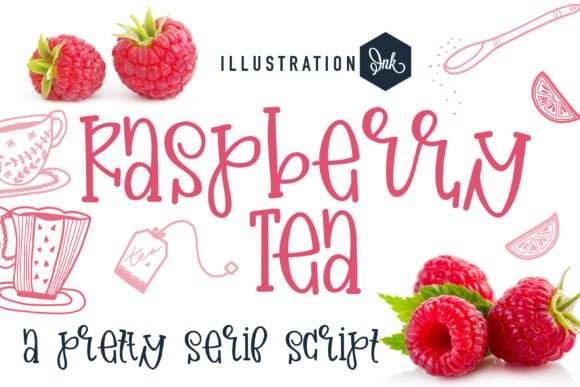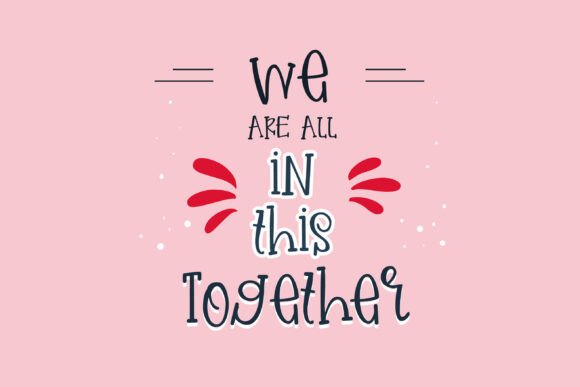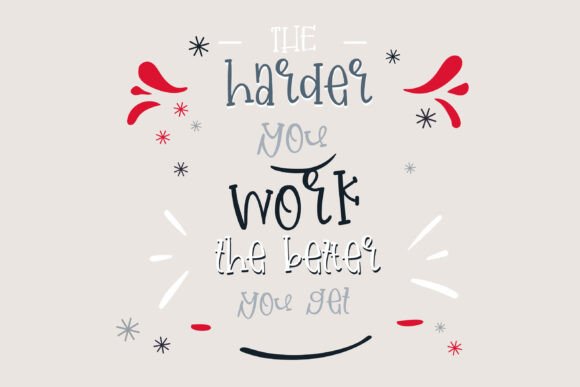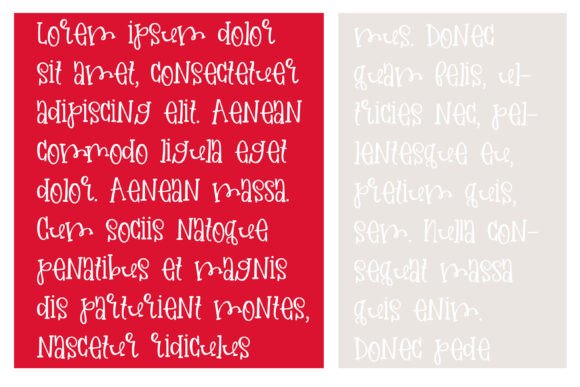
Raspberry Tea Font
About the Raspberry Tea Font
We are excited to introduce Raspberry Tea Font, a must-have typeface for any serious designer. This hand-crafted font is an upright script with slab serifs.
Raspberry Tea Font’s bold, yet friendly personality makes it ideal for headlines, short text blocks on packaging, and branding elements where a touch of handcrafted charm is desired. It works exceptionally well for invitations, short quotes, and logos requiring a vintage or slightly rustic feel. However, its script nature and slab serifs make it less suitable for body text or UI elements requiring high readability.
Pairing Raspberry Tea with a clean sans-serif like Open Sans for body copy creates a strong contrast and balanced visual hierarchy. Alternatively, a geometric sans-serif such as Futura would lend a modern edge, complementing the font’s handcrafted feel without overwhelming it. For a more traditional approach, a simple serif like Garamond could be used for supporting text.
The font’s overall aesthetic evokes a sense of warmth and approachability, making it a good choice for brands focused on artisan goods, cafes, boutique shops, or any project aiming for a friendly, handcrafted aesthetic.
Raspberry Tea Font Usage Examples
Raspberry Tea Font Example